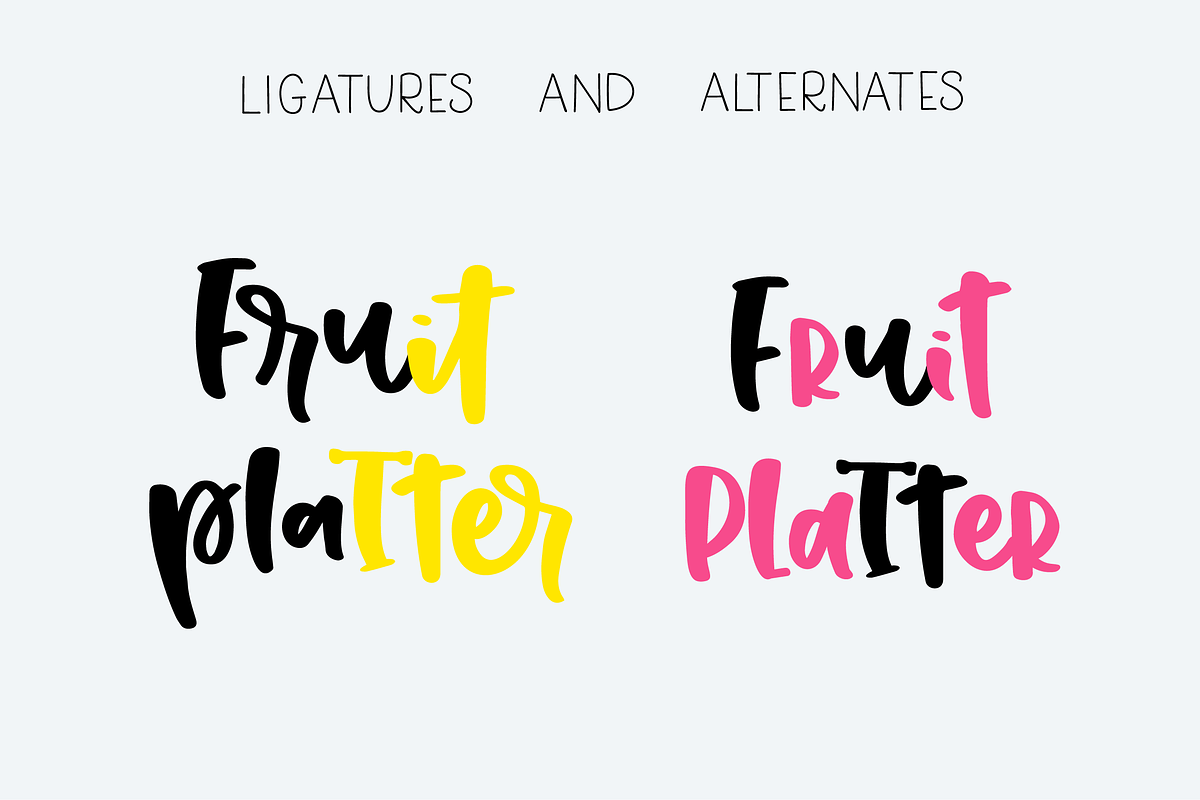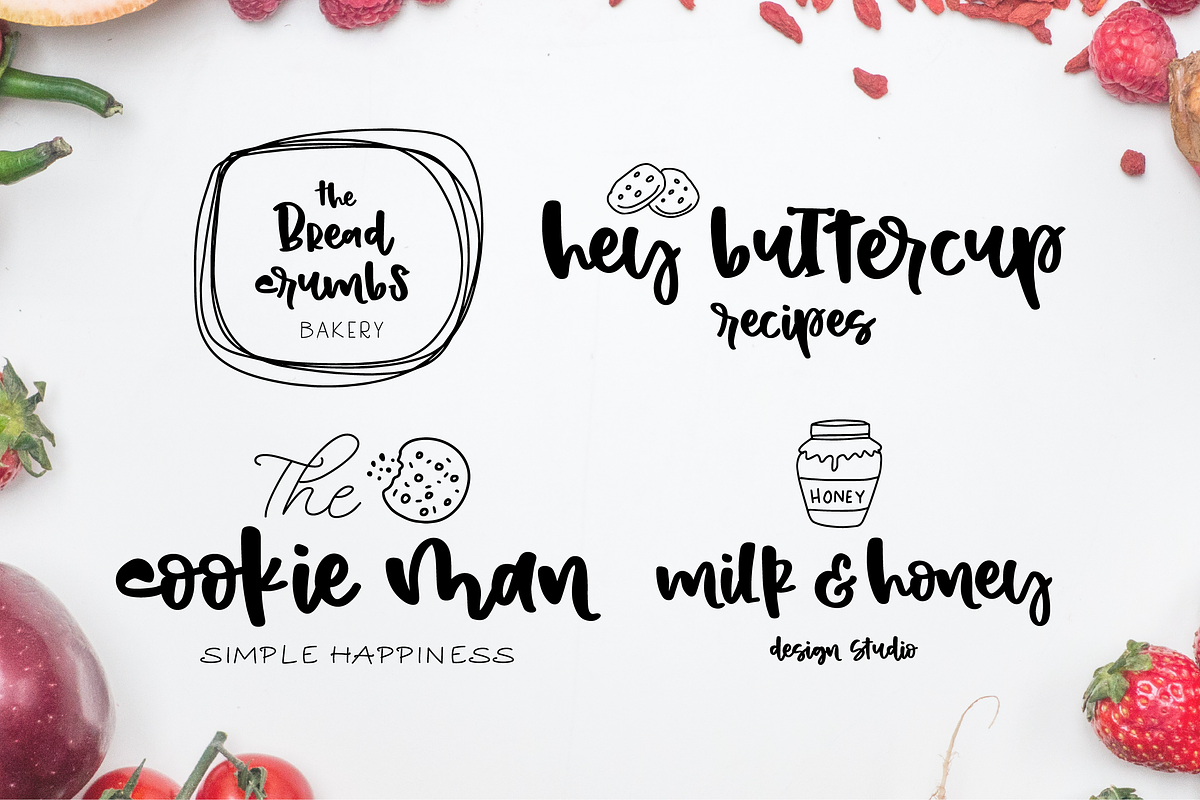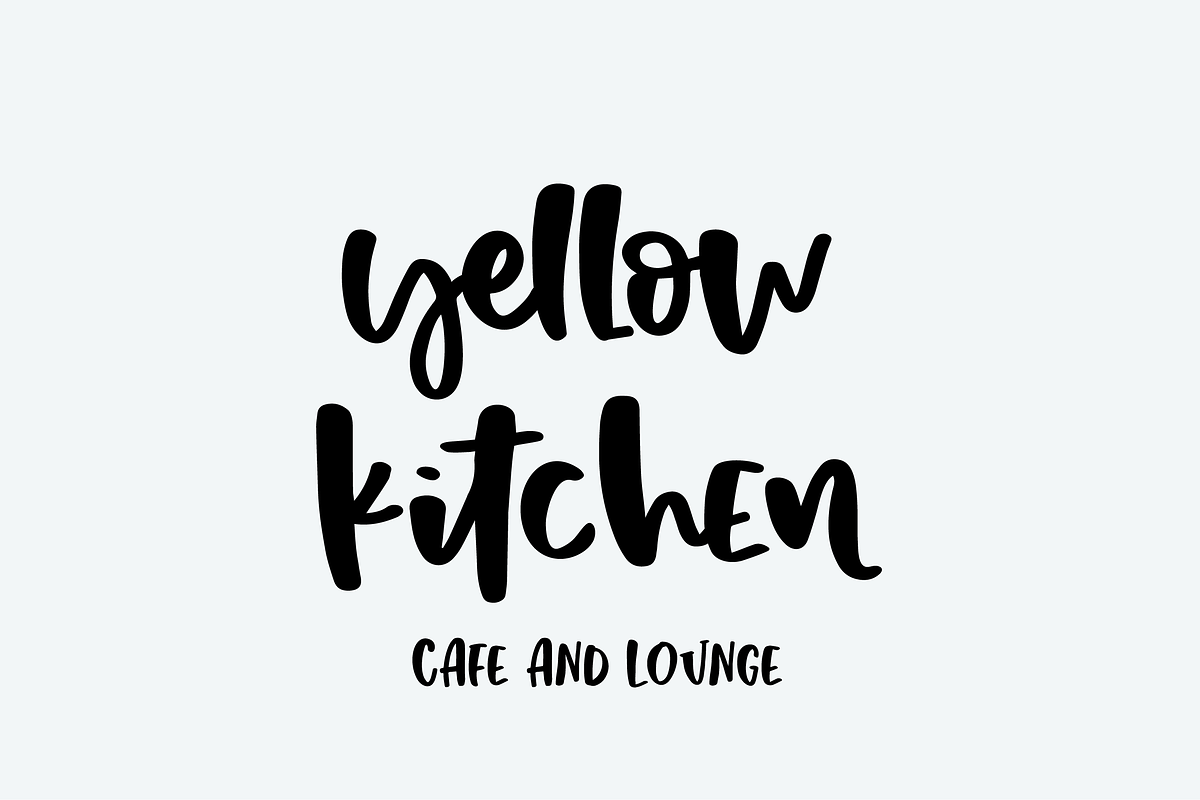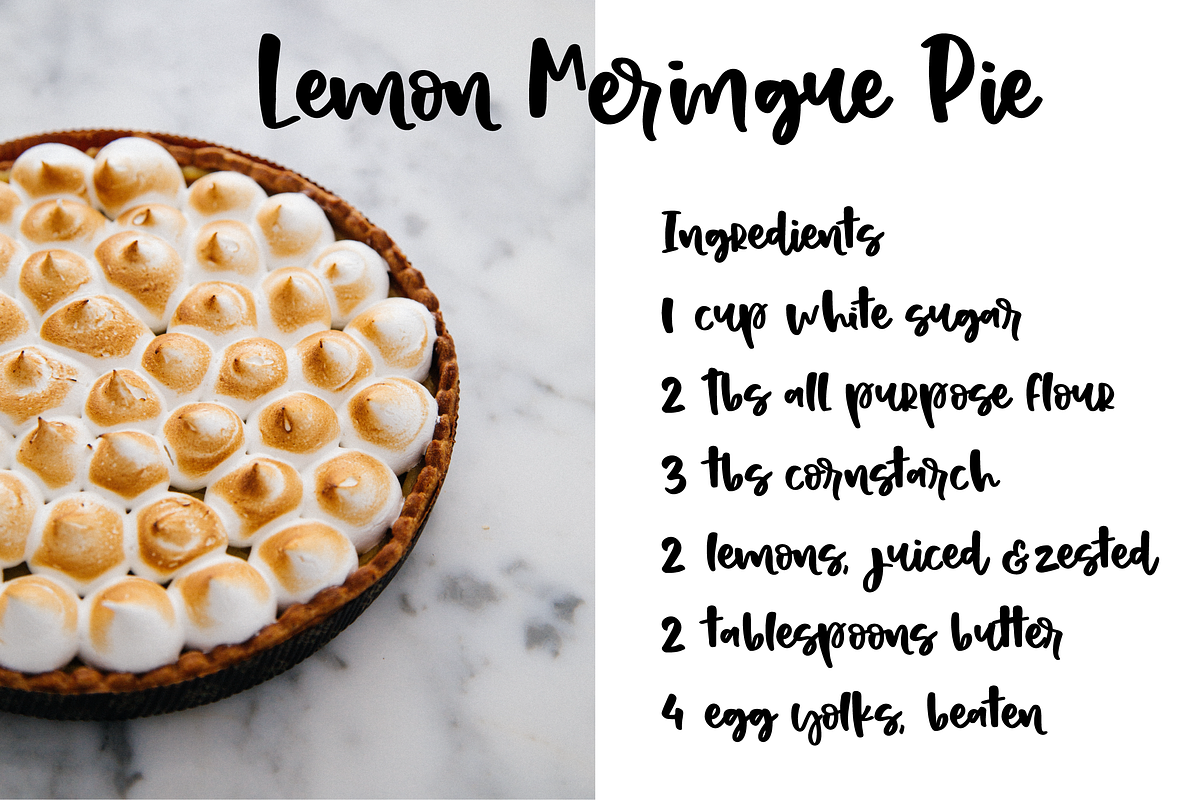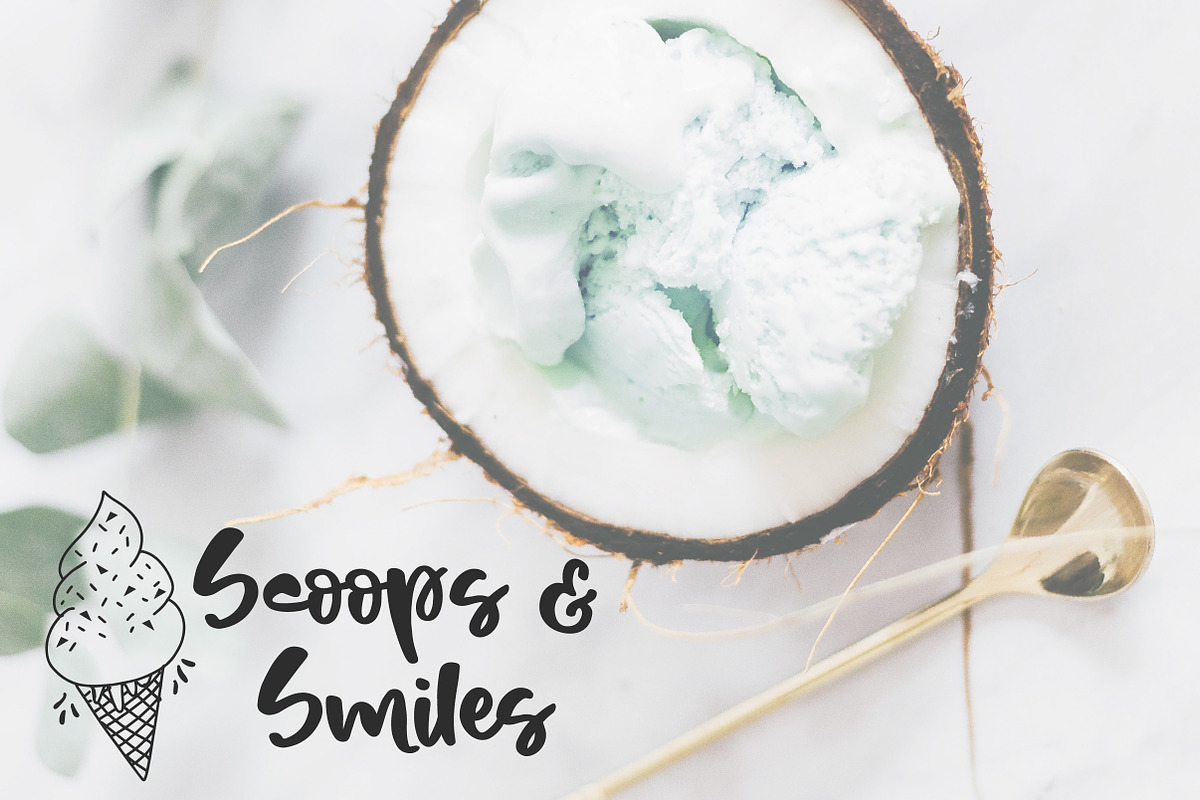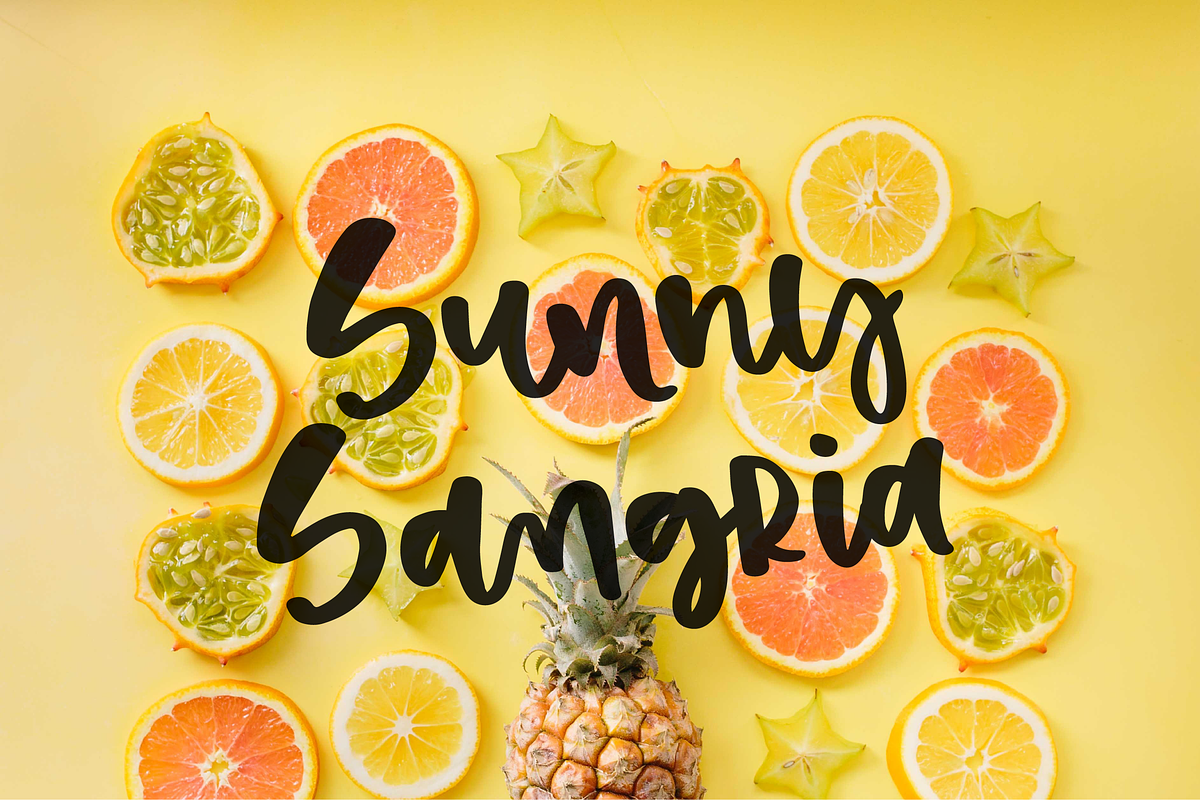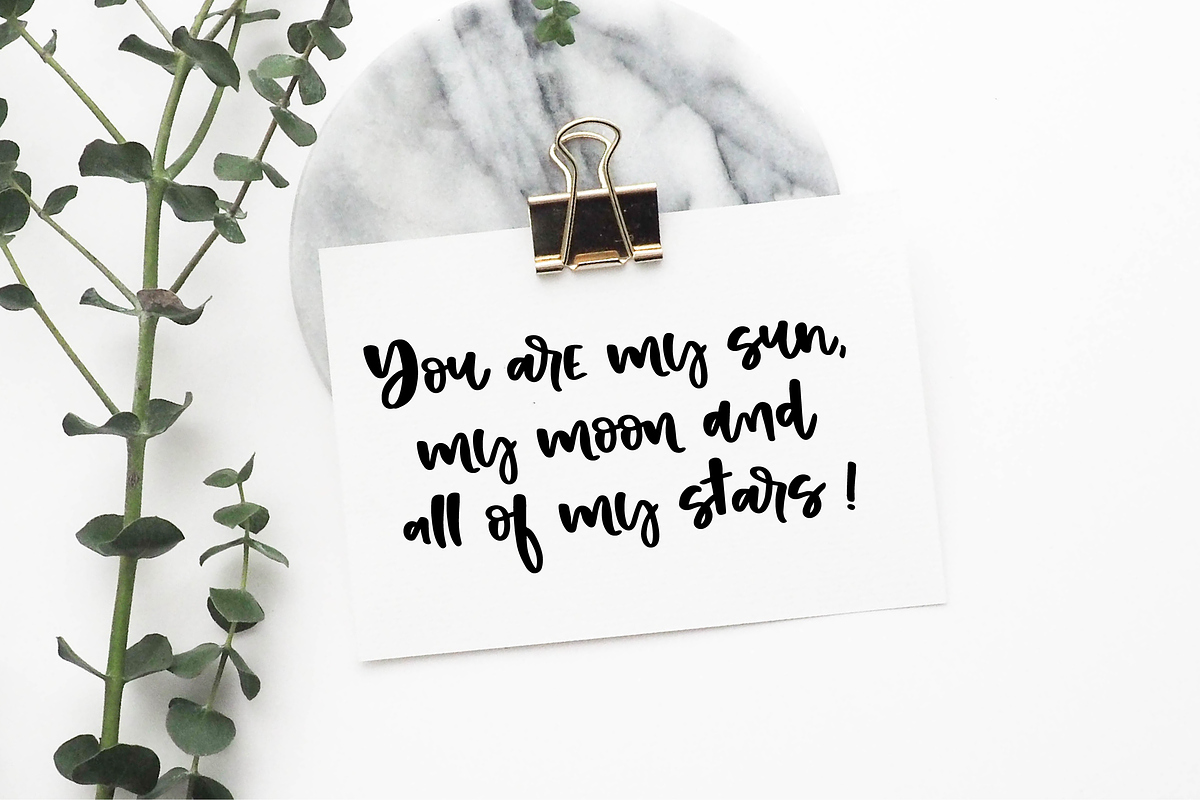
Strawberry Shortcake Font & Extras
Introducing Strawberry shortcake a delightfully whimsical font with a two sets of lowercase letters that add to the playfulness of your designs. This set comes with a bonus of illustrations and logos!
This font is ideal for invitations, social media posts, quotes, photo overlays, recipes, greeting cards, as well as packaging and branding projects.
Strawberry shortcake - a super playful font with two sets of lowercase letters.